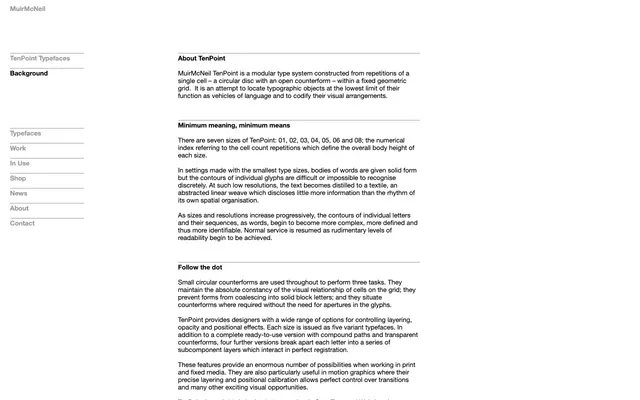
TenPoint
A modular type system by MuirMcNeil built from a single circular disc cell repeated on a fixed geometric grid, producing seven sizes that range from near-illegible textile-like patterns to rudimentary readability.
Each of the seven sizes — indexed 01 through 08 by cell-count repetitions defining body height — behaves differently: the smallest reduce text to an abstracted linear weave, while larger sizes gradually resolve into identifiable letterforms. Every size ships as five variant typefaces, including a compound-path ready-to-use version and four decomposed layer sets that sit in perfect registration, enabling extensive opacity, layering and positional effects. The system is particularly suited to motion graphics, where precise registration allows controlled transitions across the scale of abstraction.
TenPoint is a strictly modular display system built on a geometric grid of circular disc cells, placing it firmly in the display category with a modular/experimental subcategory due to its systematic, rule-based construction and extreme abstraction at small sizes.